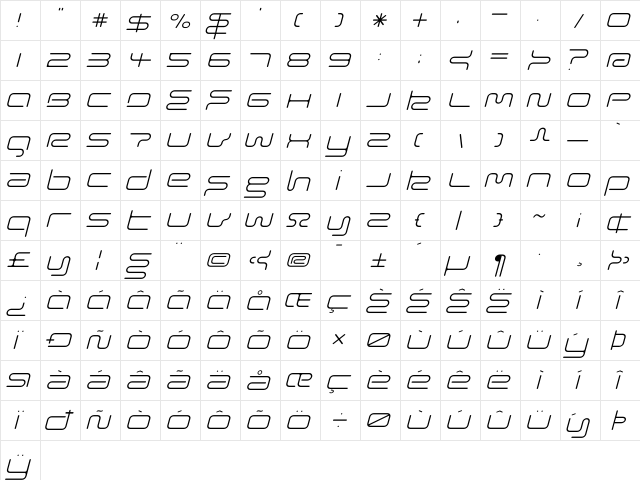
Euphoric ThinItalic
Design Context for Euphoric Typeface
Euphoric offers clean, dependable letterforms without strong stylistic allegiance, making it a practical choice for designers who need flexibility. Its italic angle brings a sense of urgency and motion to the letterforms. The delicate stroke weight brings airiness and refinement to layouts.
Pro Tip: Use Euphoric for emphasis, pull quotes, and subheadings where its slanted energy can add rhythm to the layout.